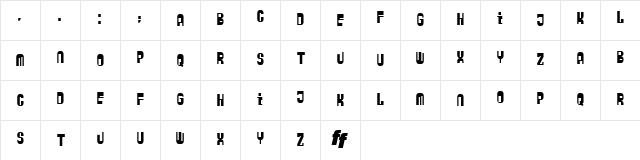
ZyberBob Regular Free Font
ZyberBob Regular
Design Context for ZyberBob
ZyberBob is a composed and adaptable typeface that performs quietly and consistently across a wide range of design contexts.